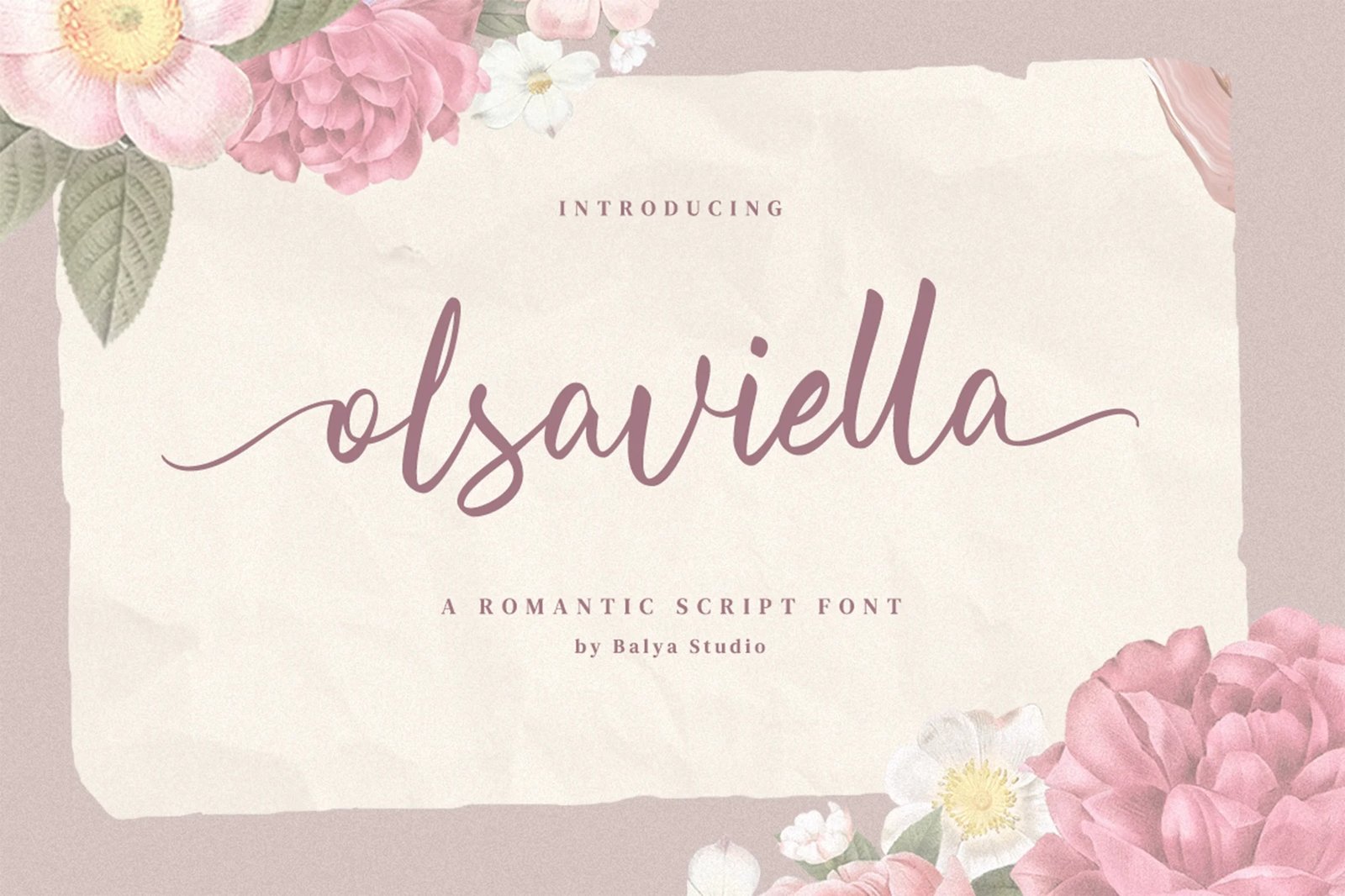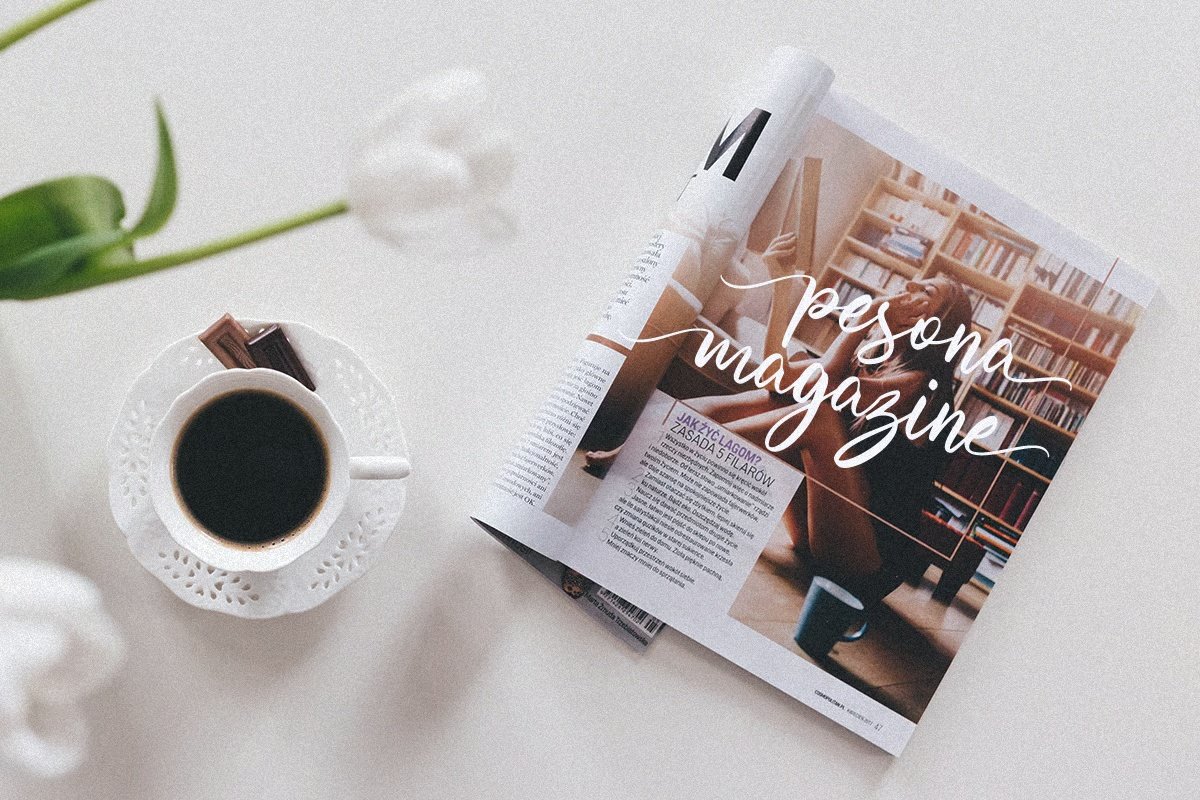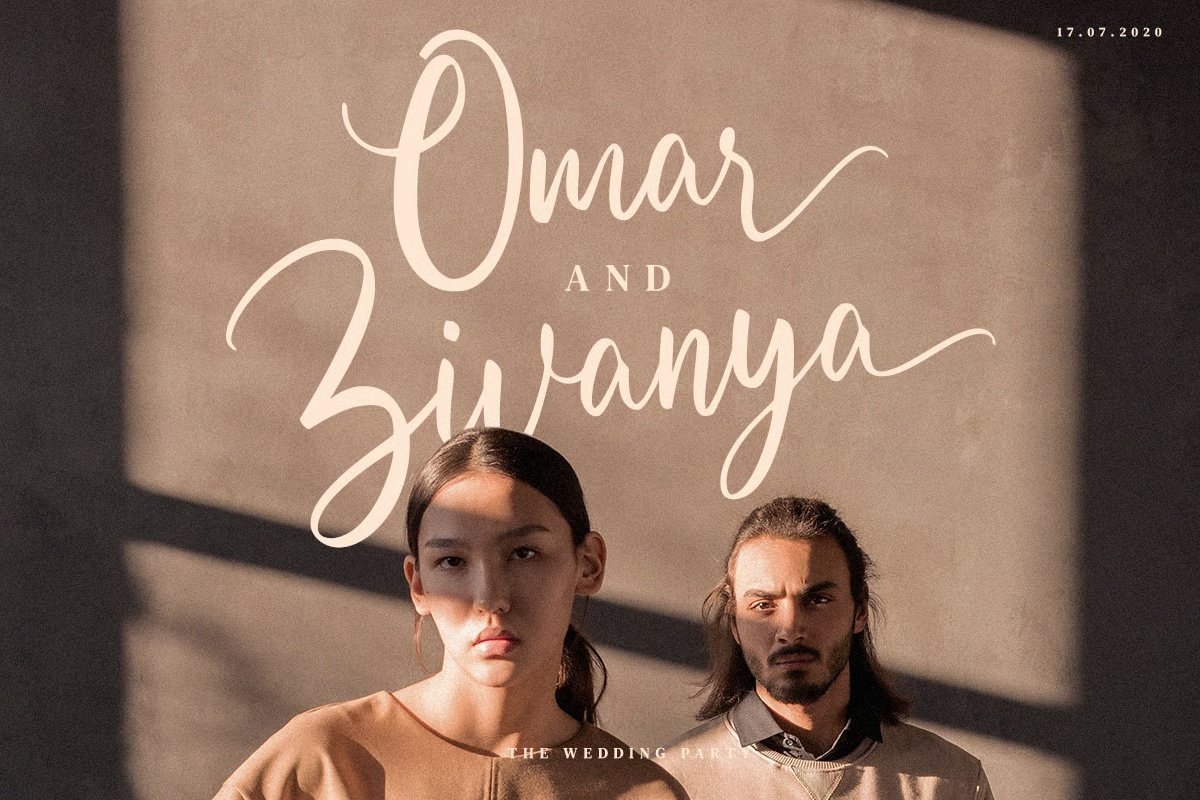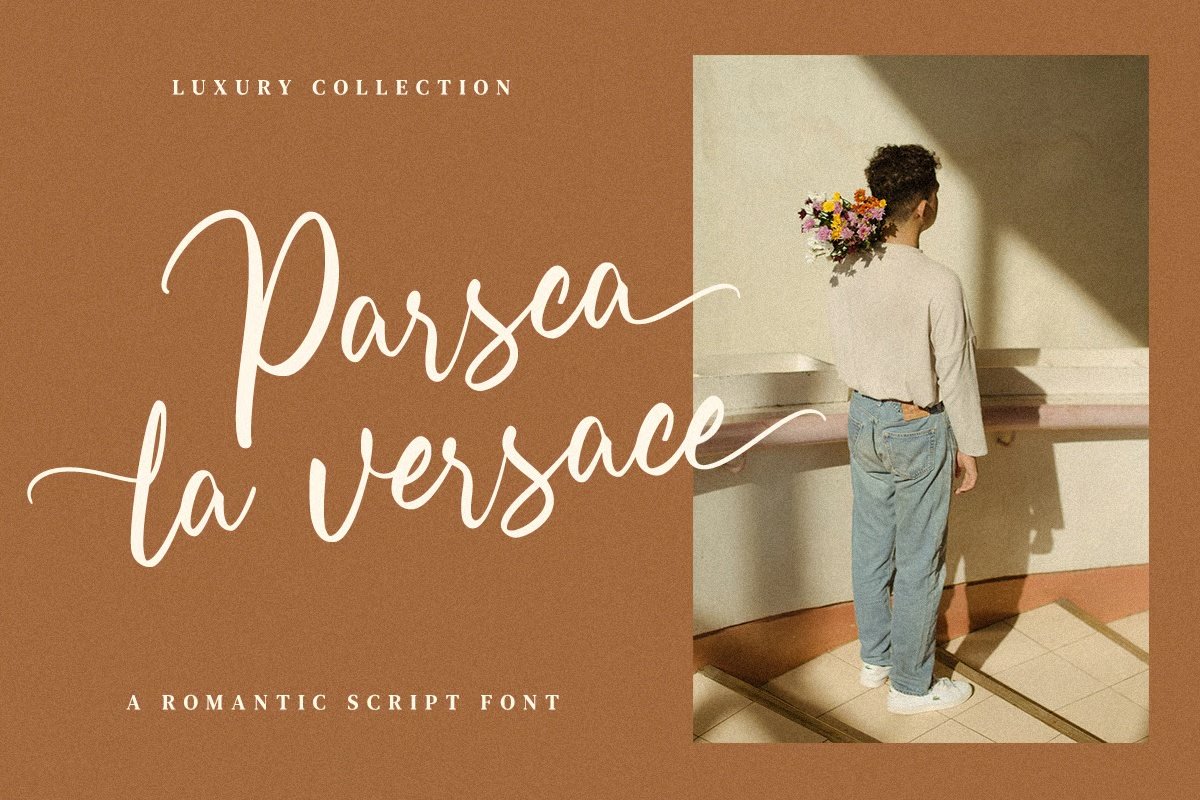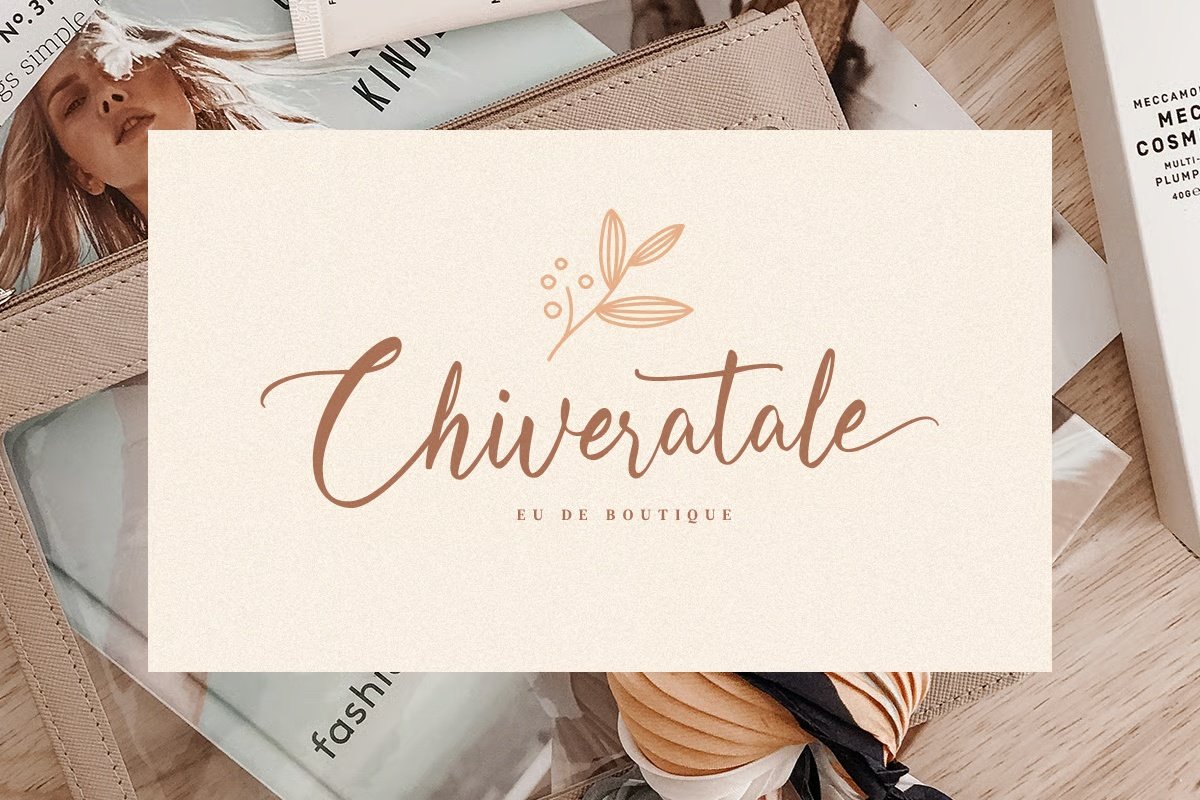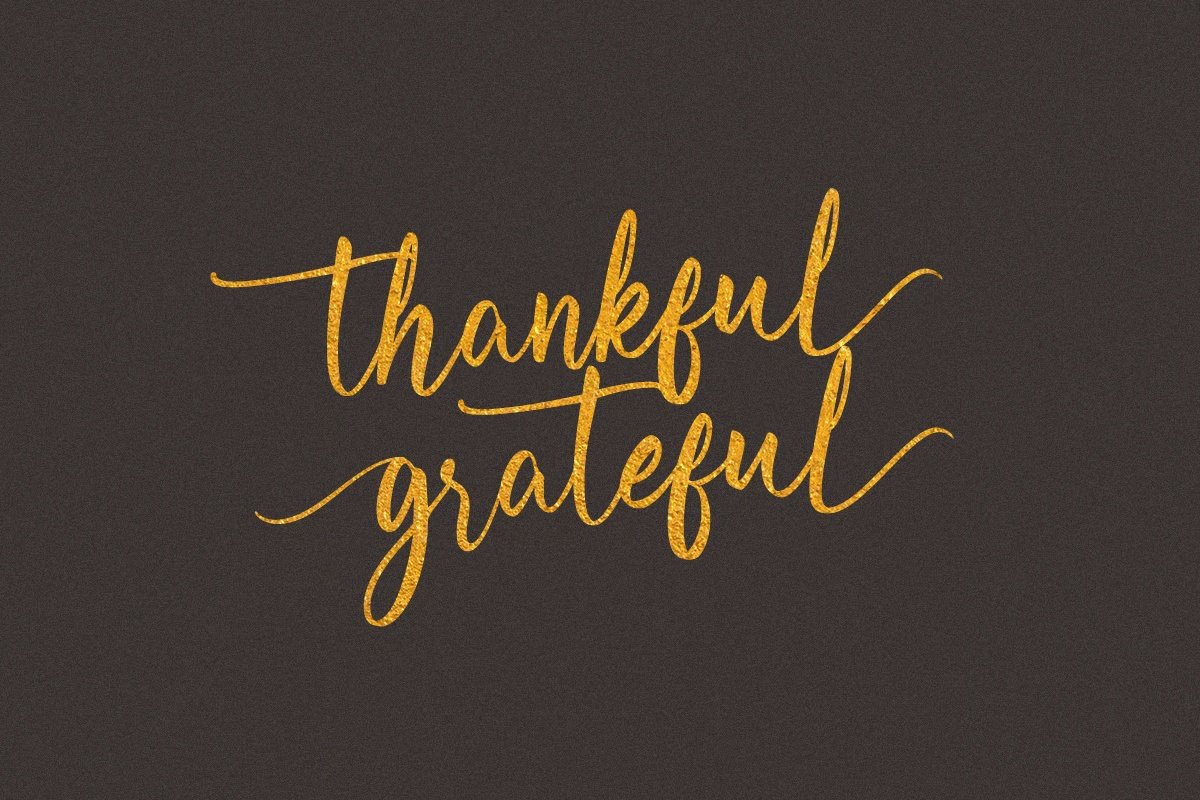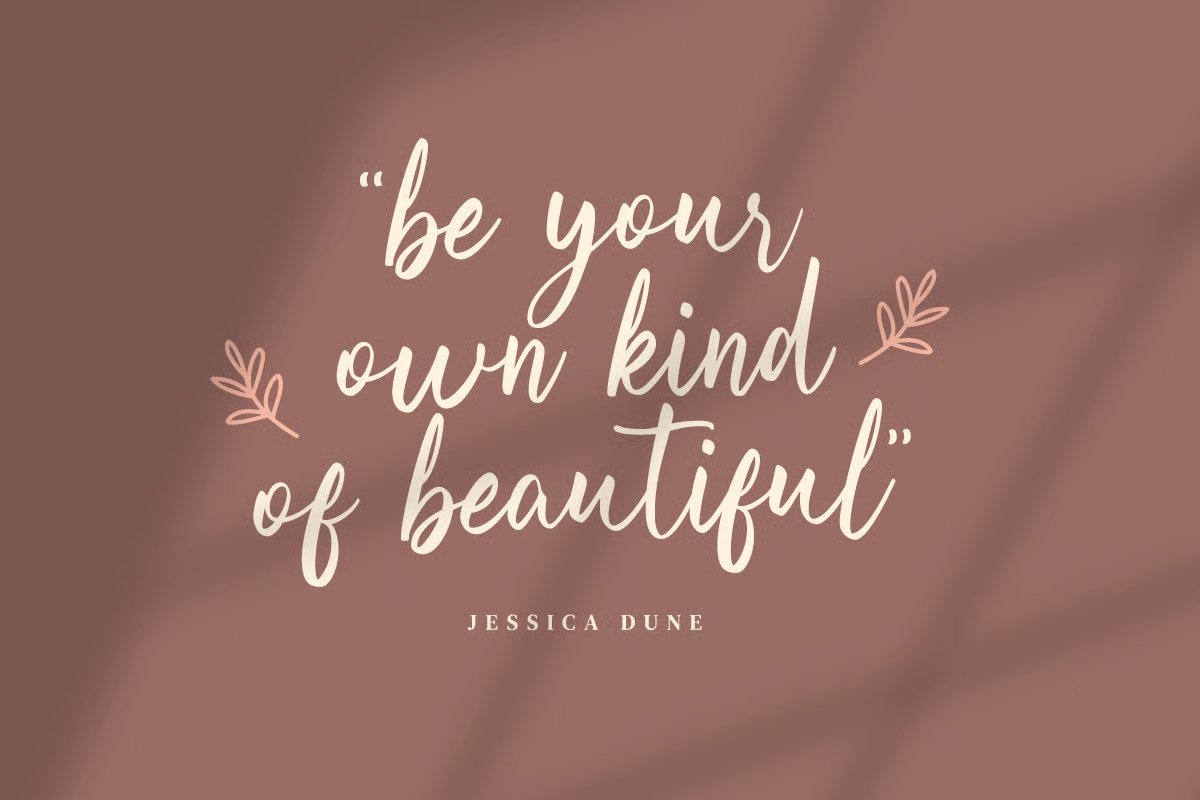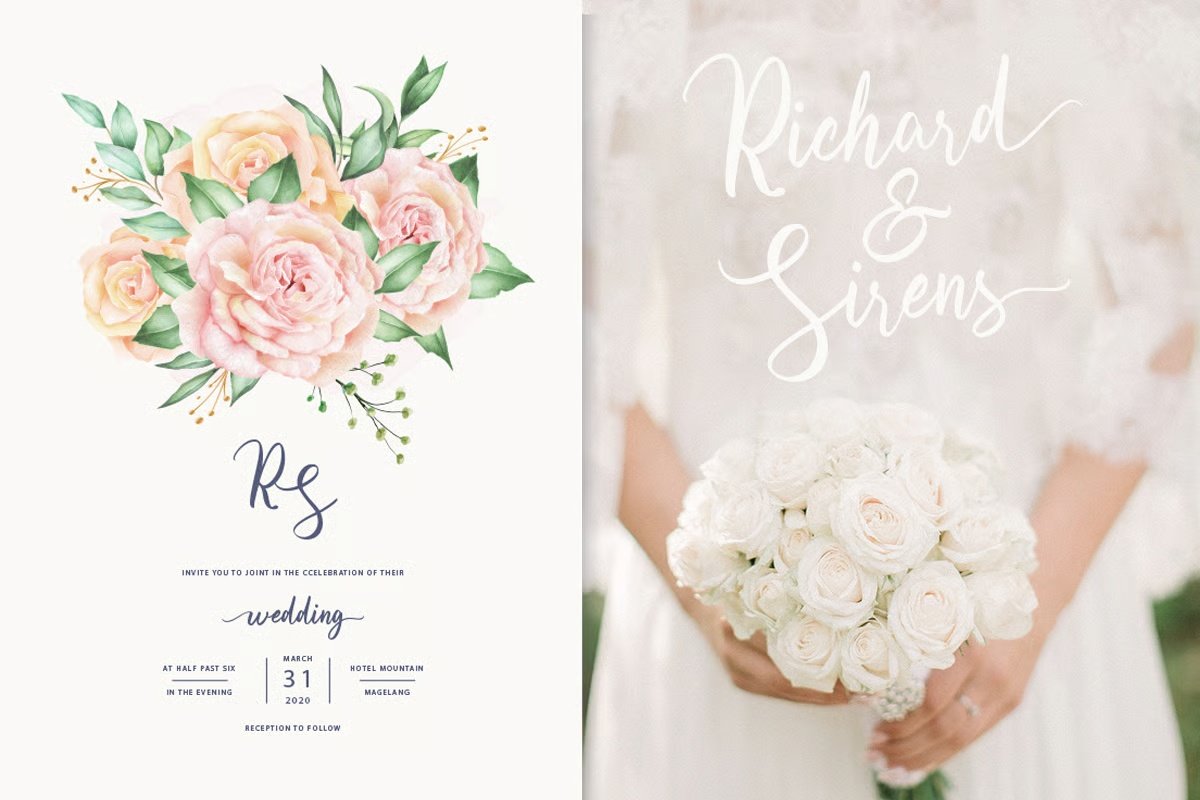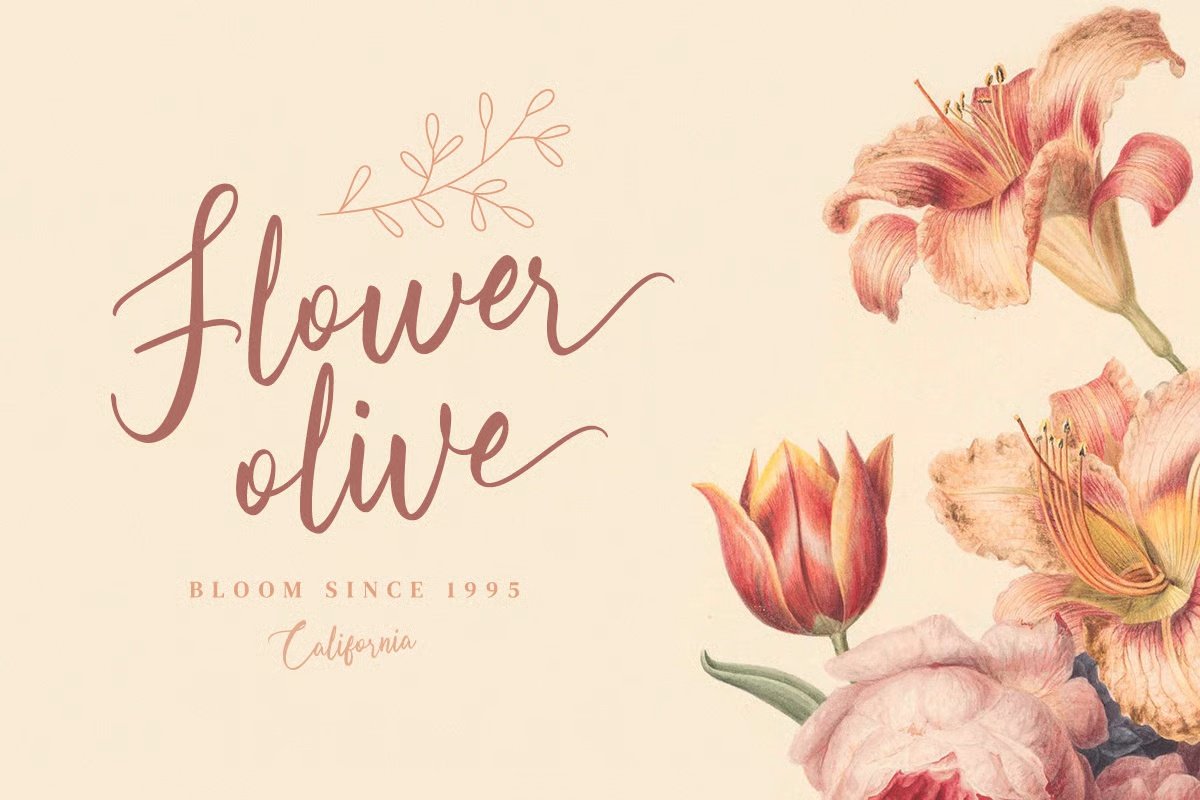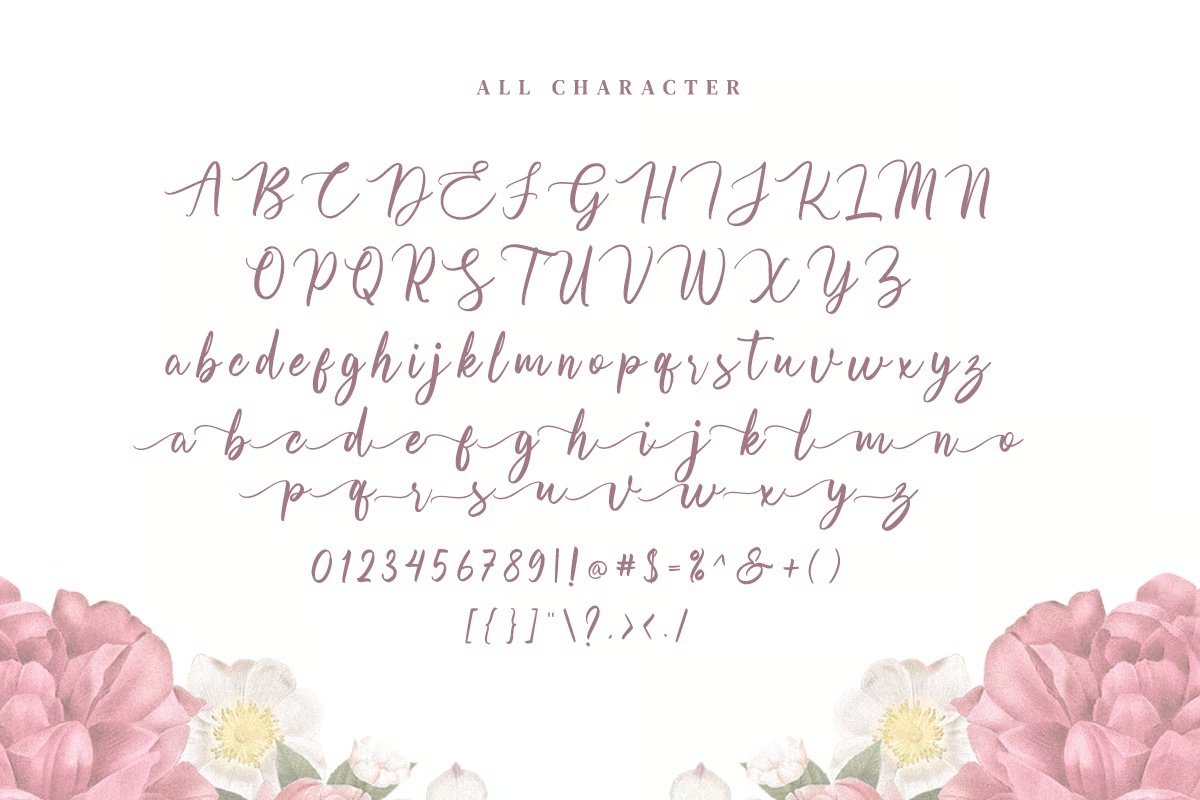
** Olsaviella is a signature font ** This font can be used in various applications such as beauty, signature, and you can create beautifully — Including